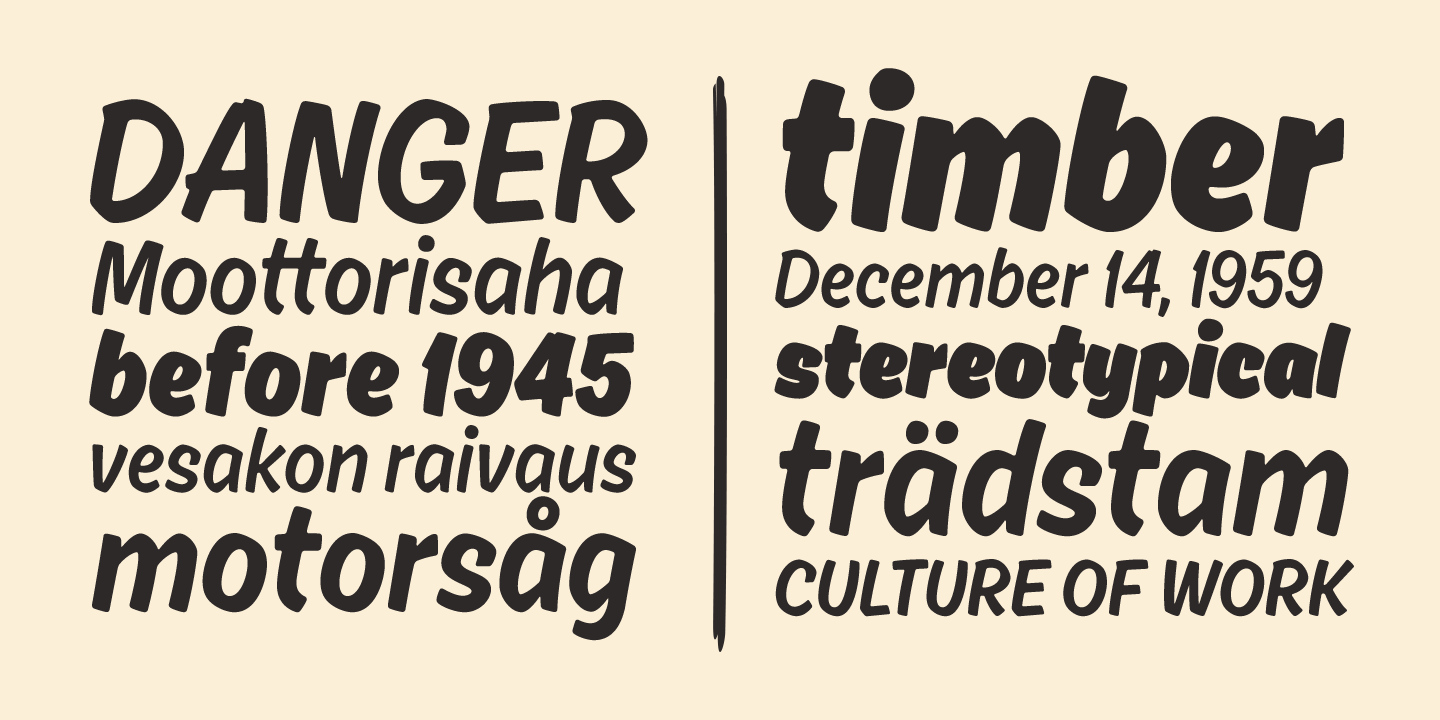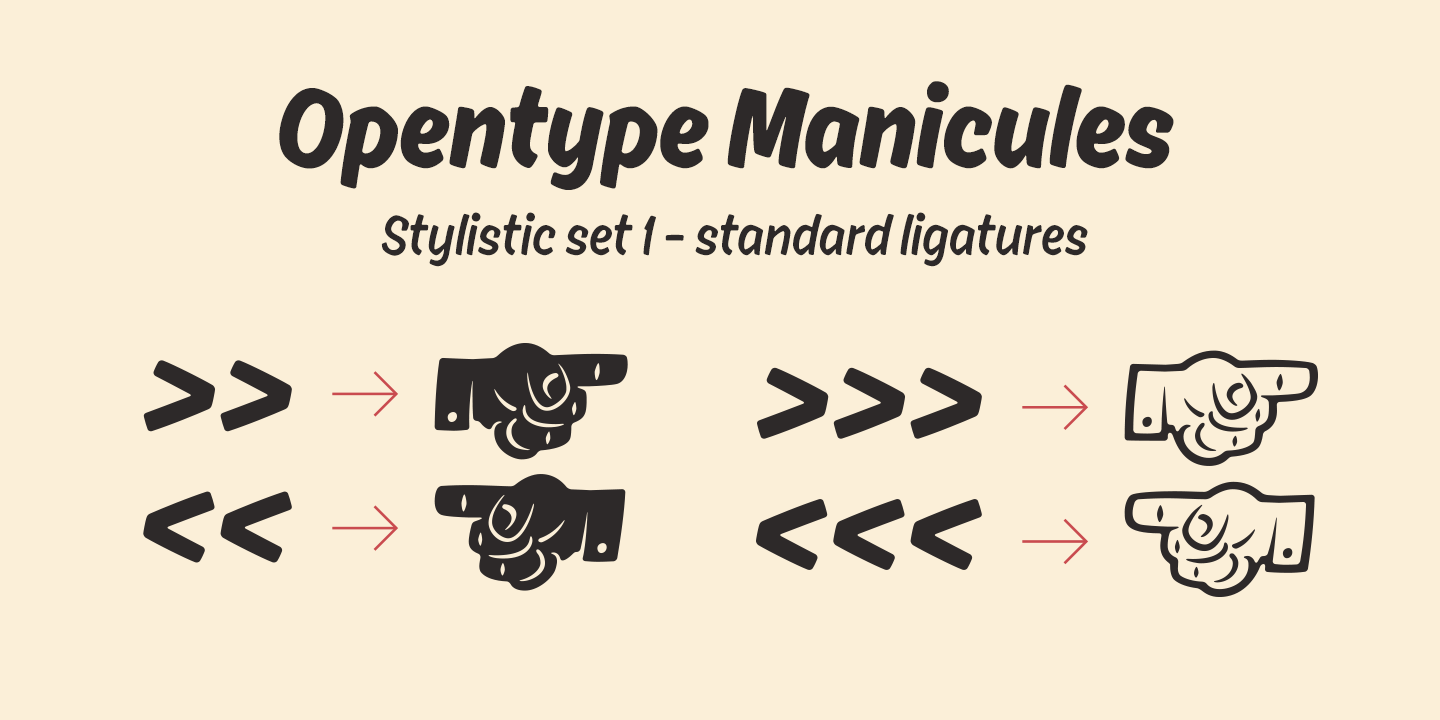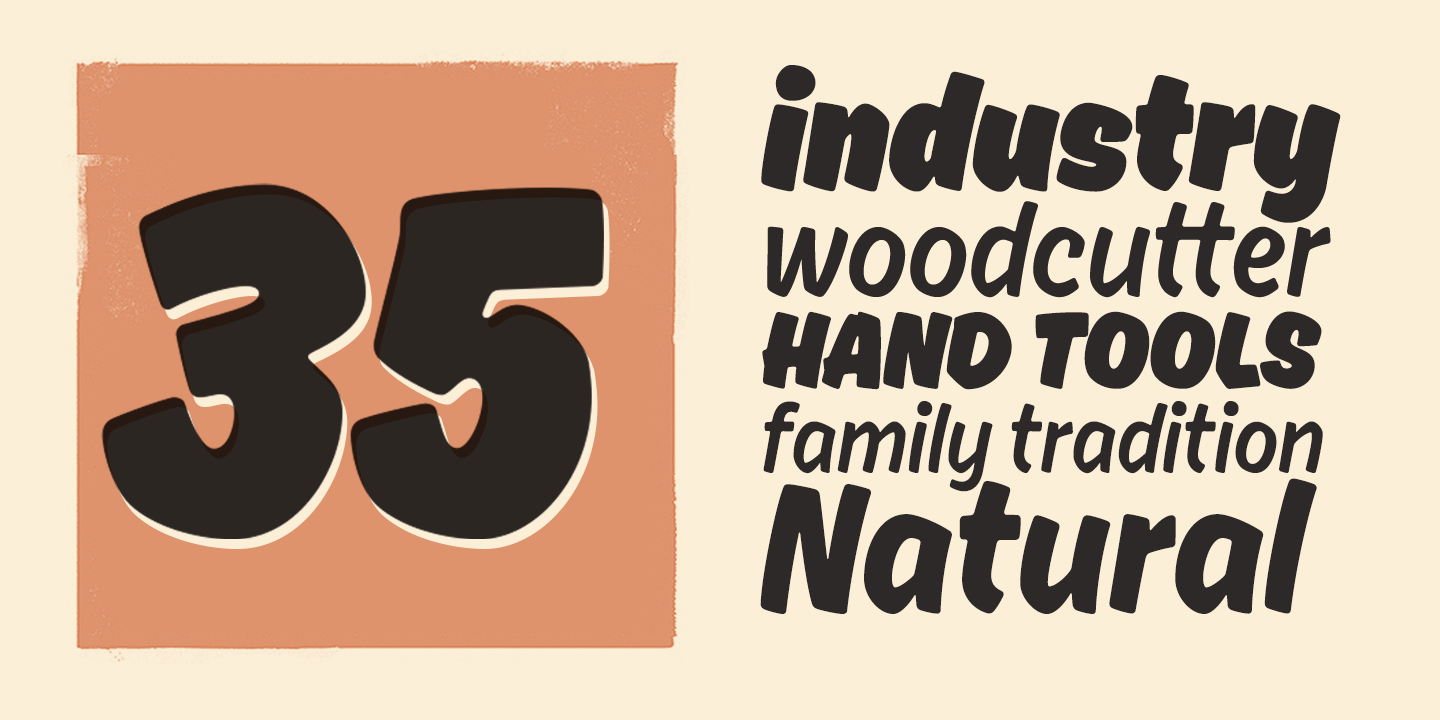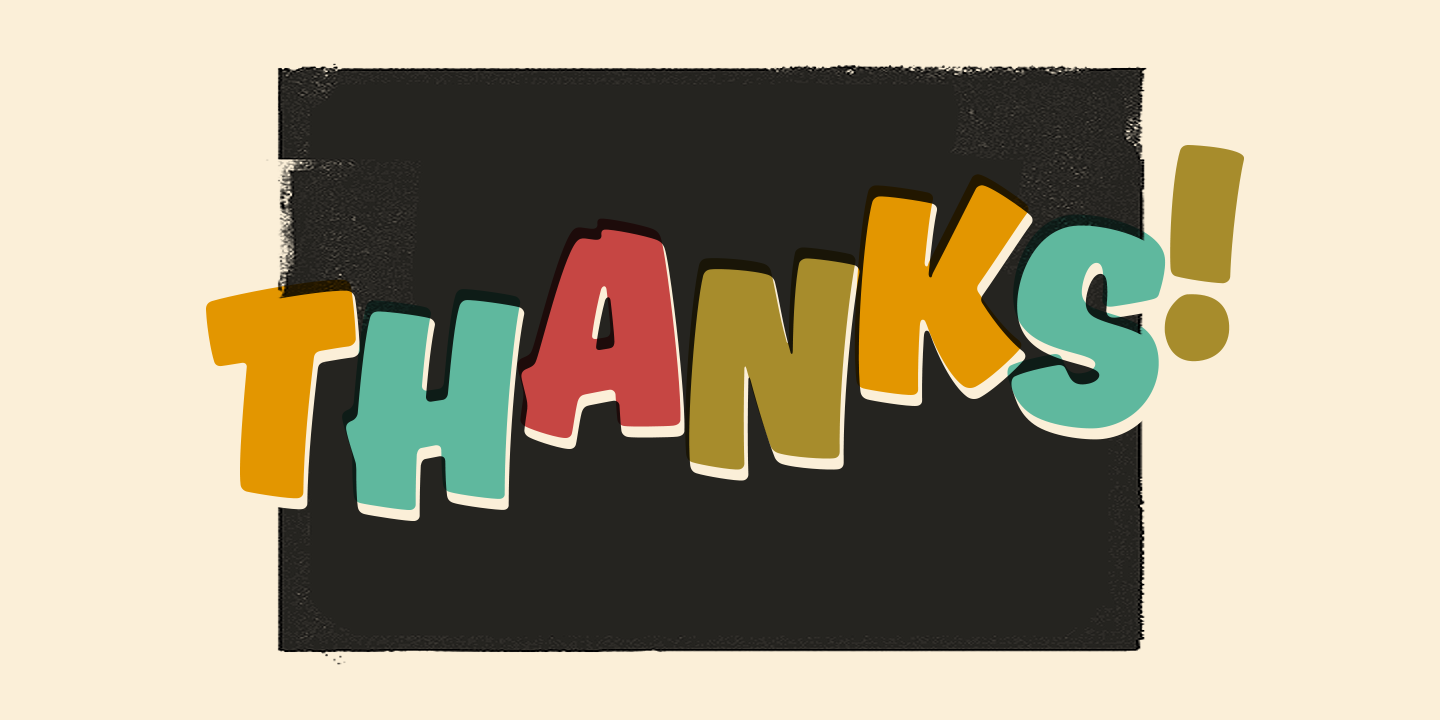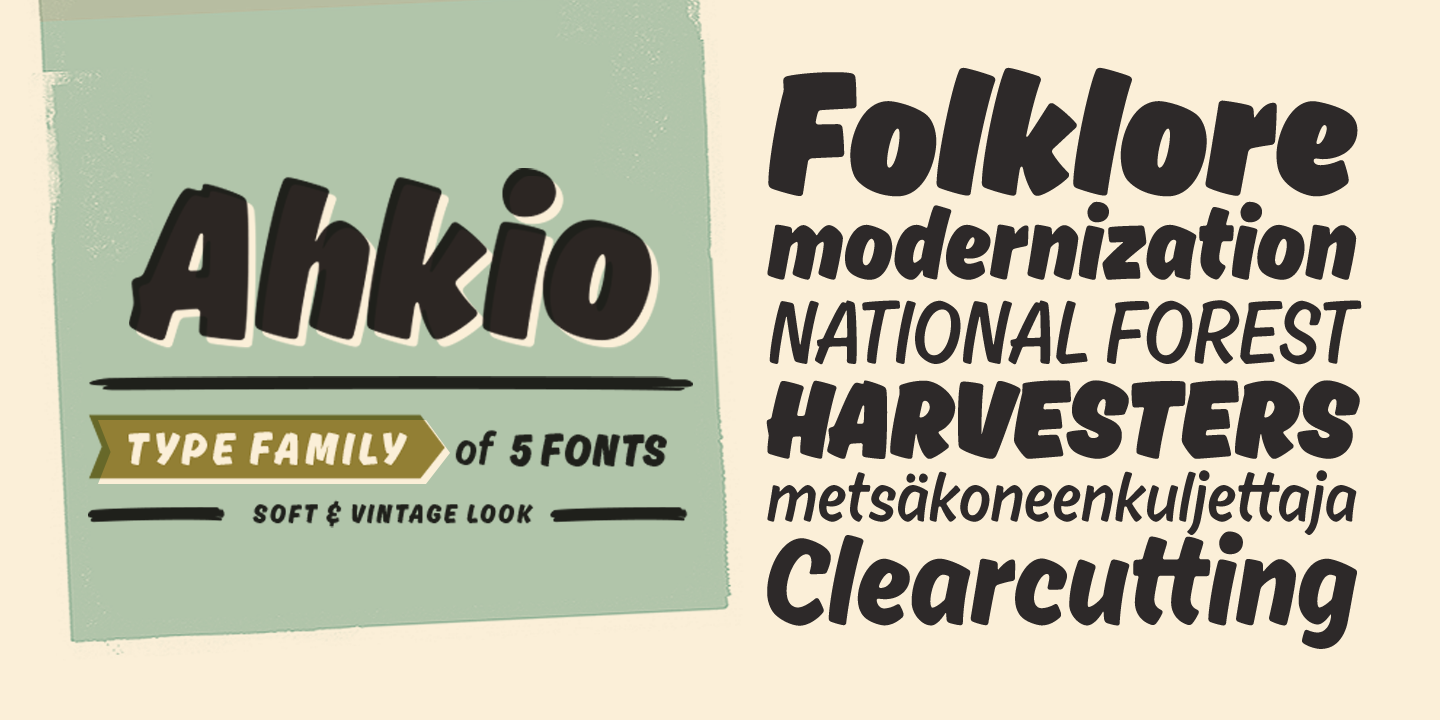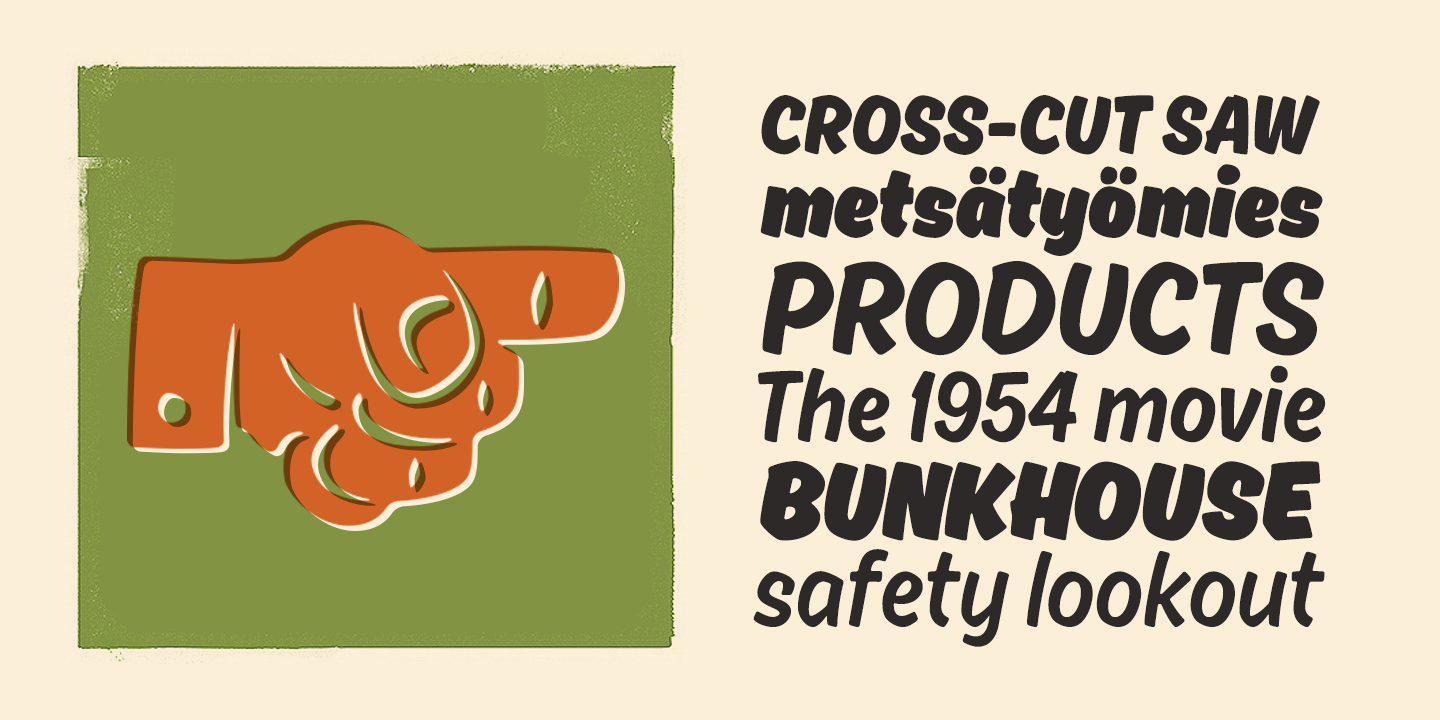
Ahkio
Ahkio is a brushed disconnected script family of 5 fonts. Ahkio’s roots are in 1930s sign painting and showcard lettering but with a modern and distinctive twist. The main characteristics are soft, rounded forms and a bit of curved stems. Ahkio is a friendly and gentle font that suits well in titles, packages, logos, and, for example, posters. 5 weights make Ahkio a versatile font that allows you to add contrast and interest to your typography.